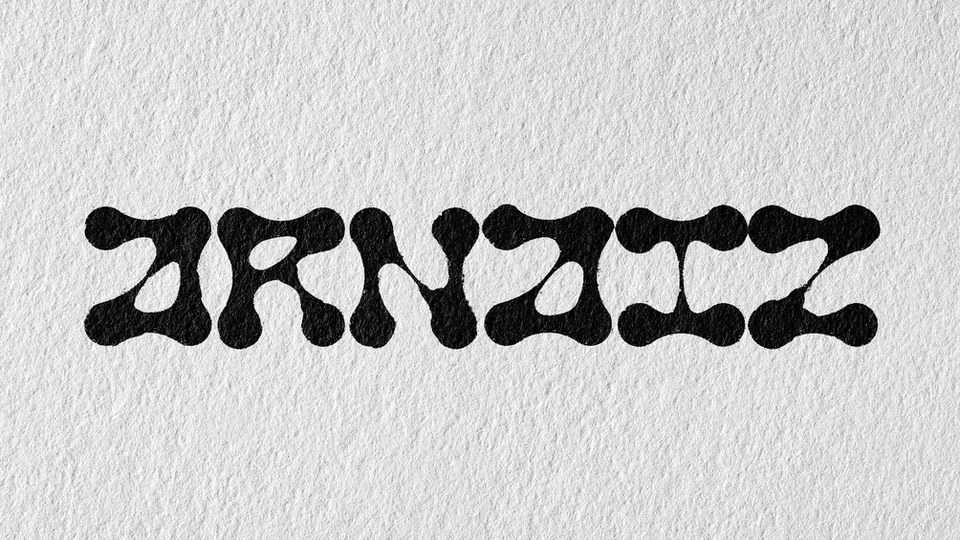
Download Arnaiz font, a unique grid based display typeface with futuristic shapes. Arnaiz is great for posters, album artworks, typographic composition and more.
Designer: Visual Avortic